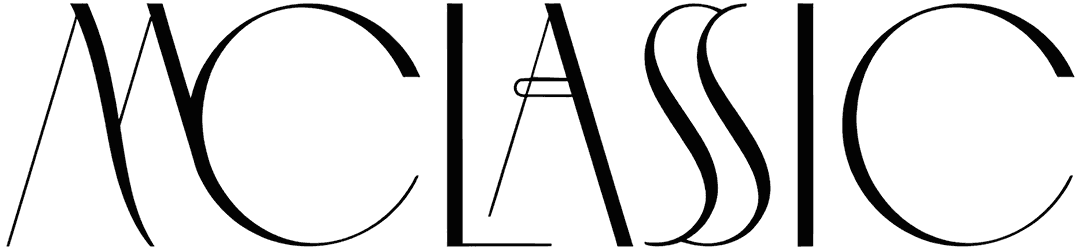
Mclassic Font
Create a modern vintage-style typography that is very classy by manipulating Mclassic! It provides elegant sans serif characters that are slim and look fashionable, they also give your design a nice, friendly feel.
This luxury serif font is brilliant from the point of view that it forms a geometrical luxury typography. All these features are a reason to add Mclassic and include it in books, fashions, headlines, posters, cosmetics, or wherever you want for a minimal design.